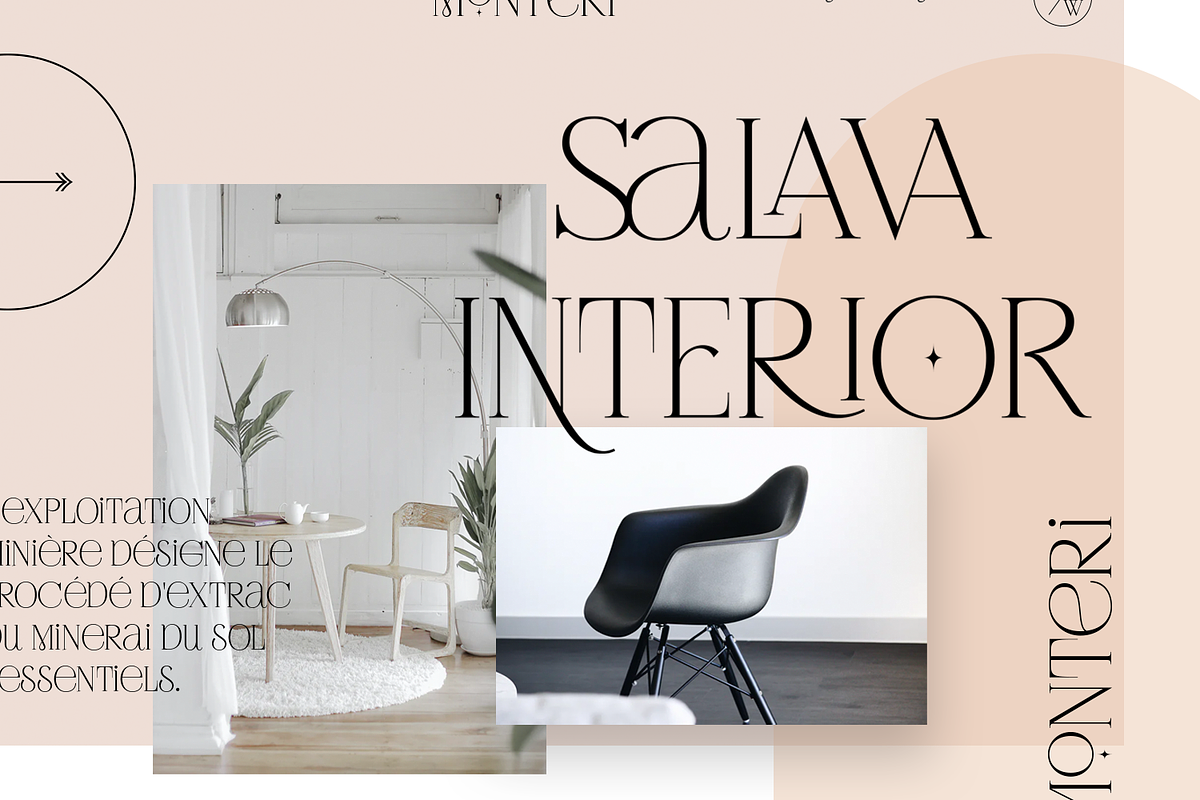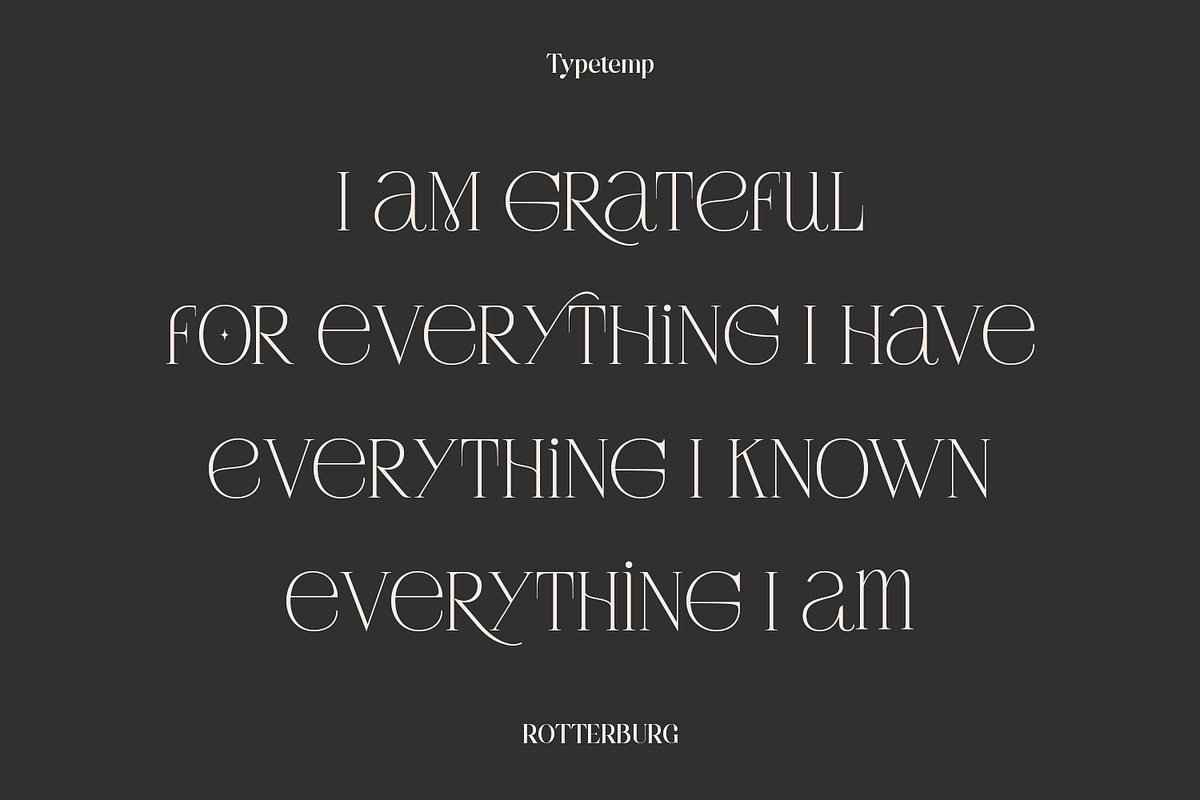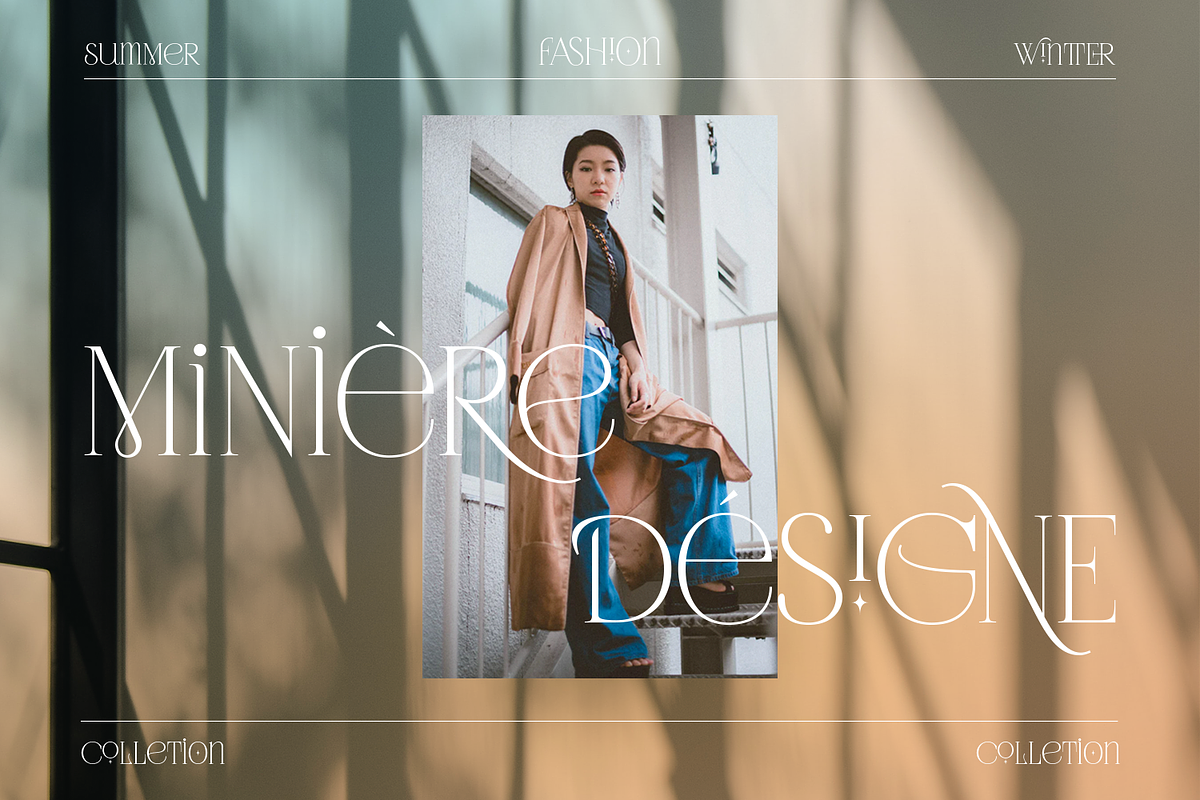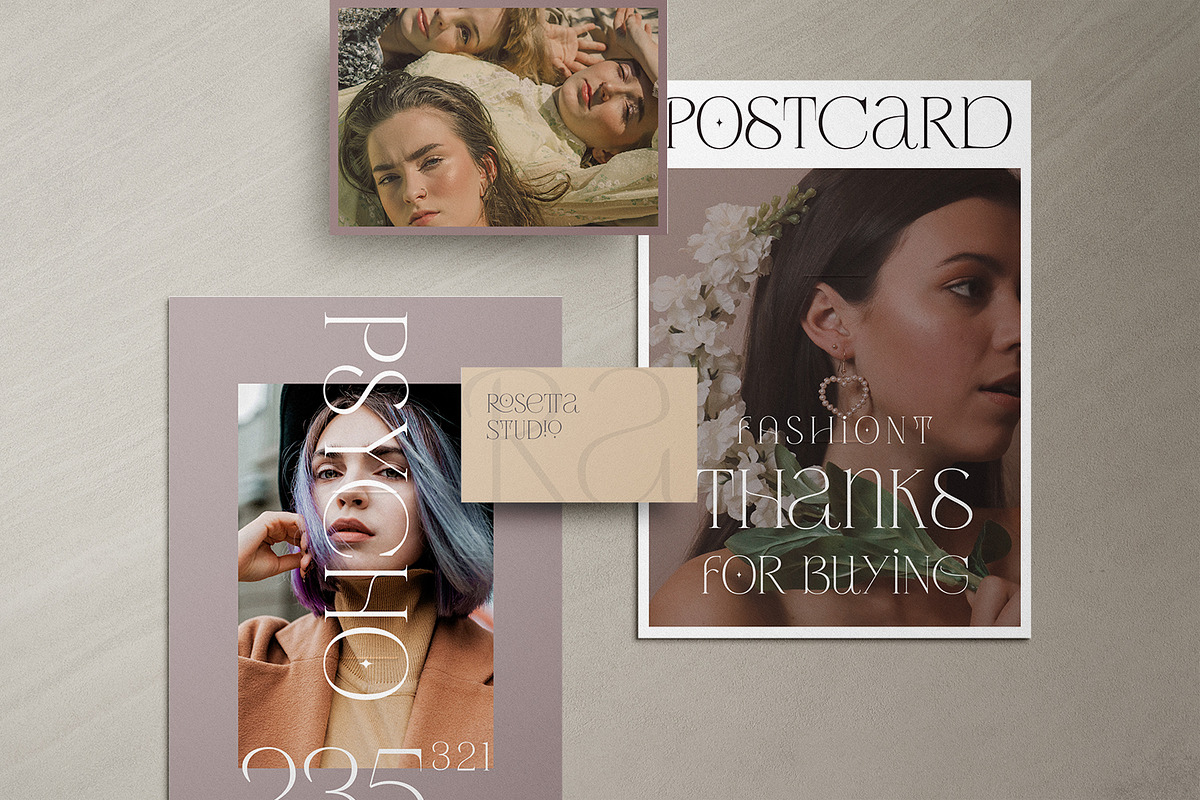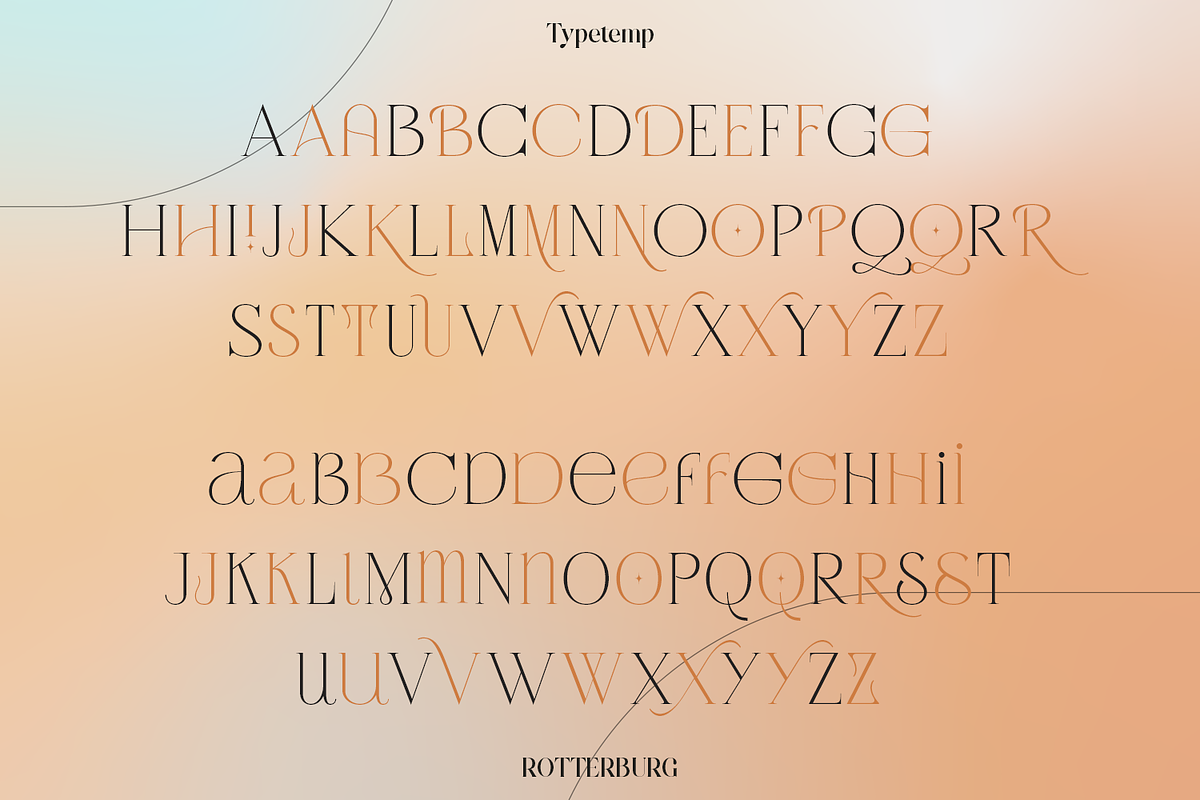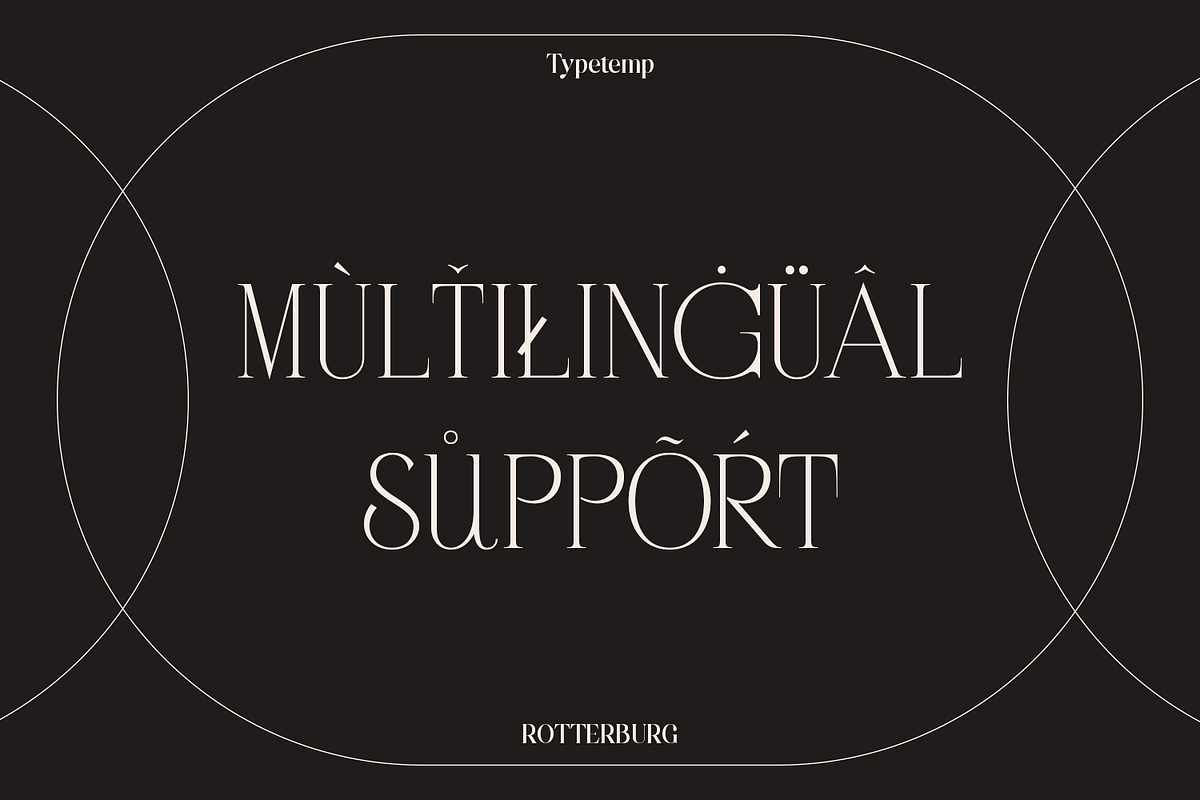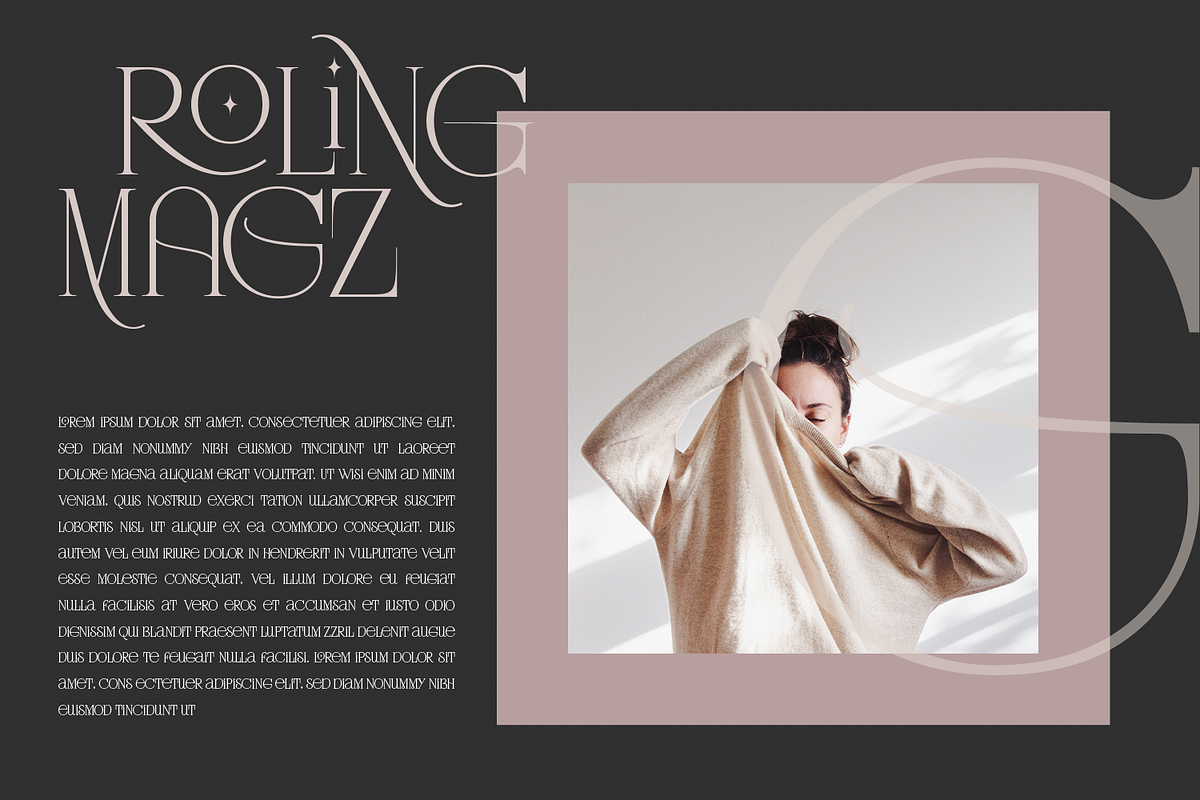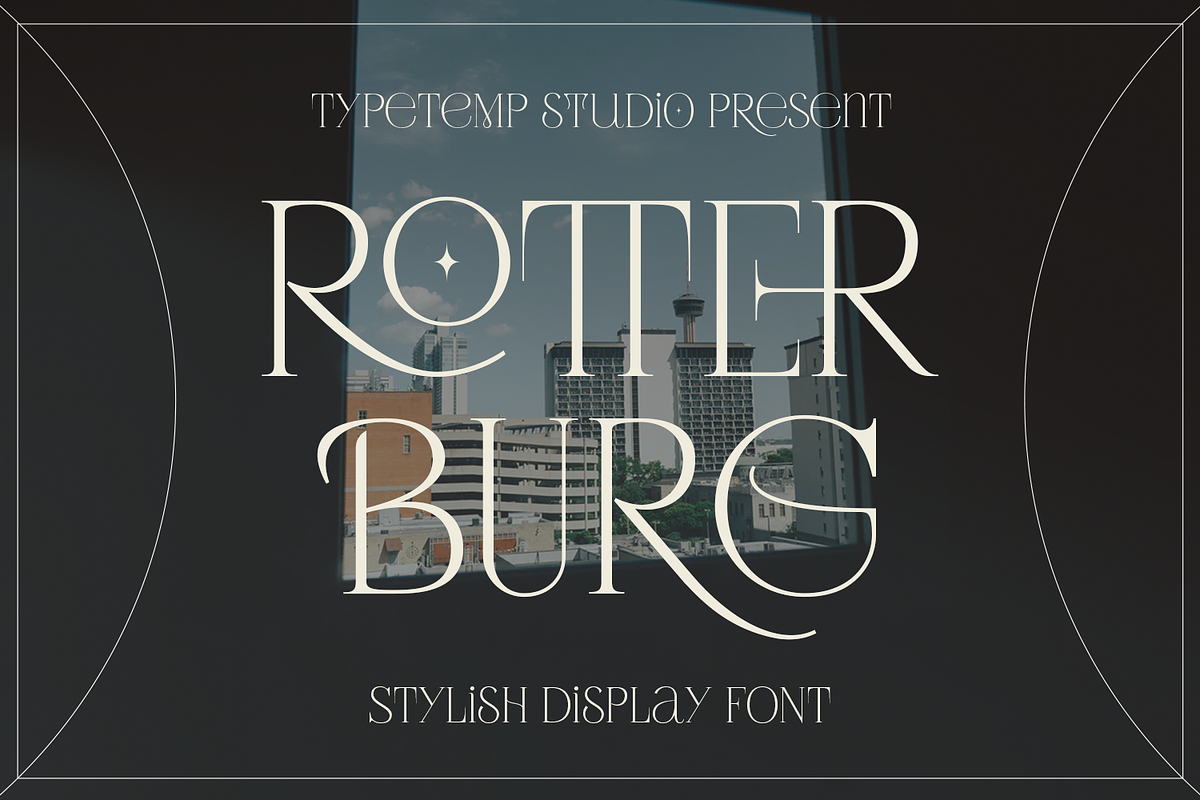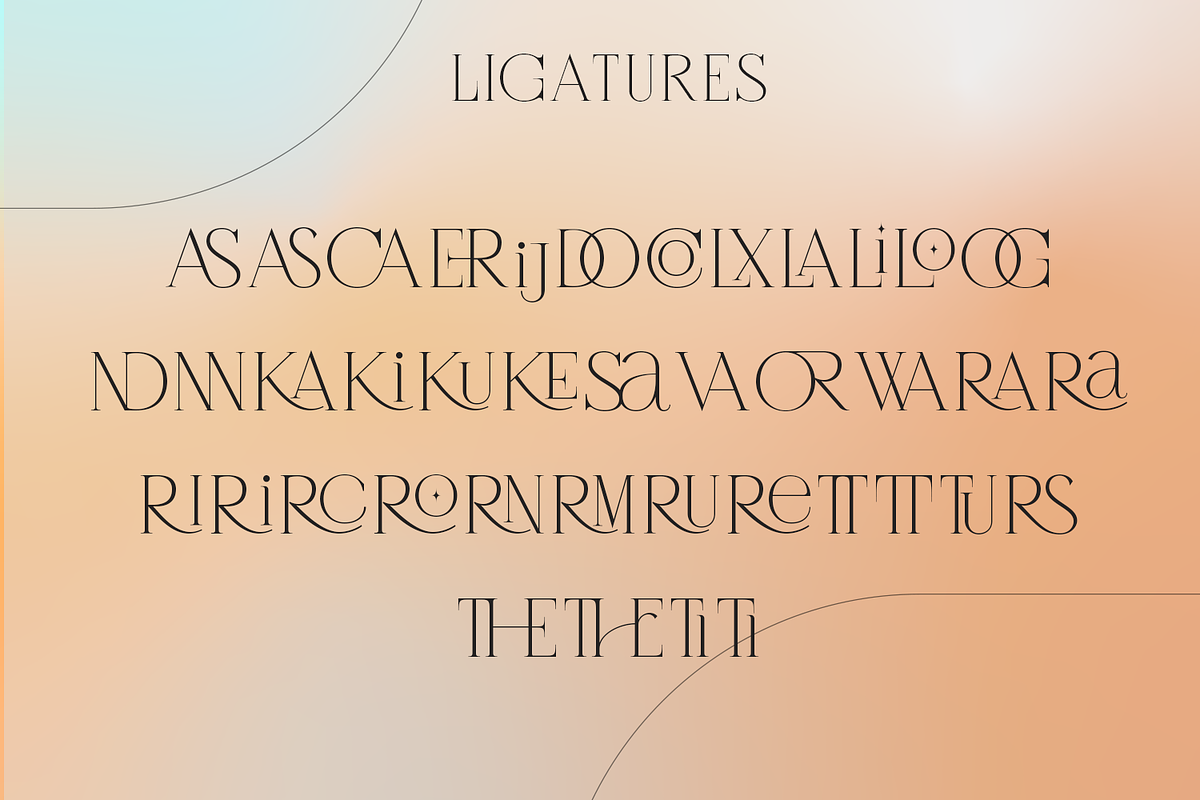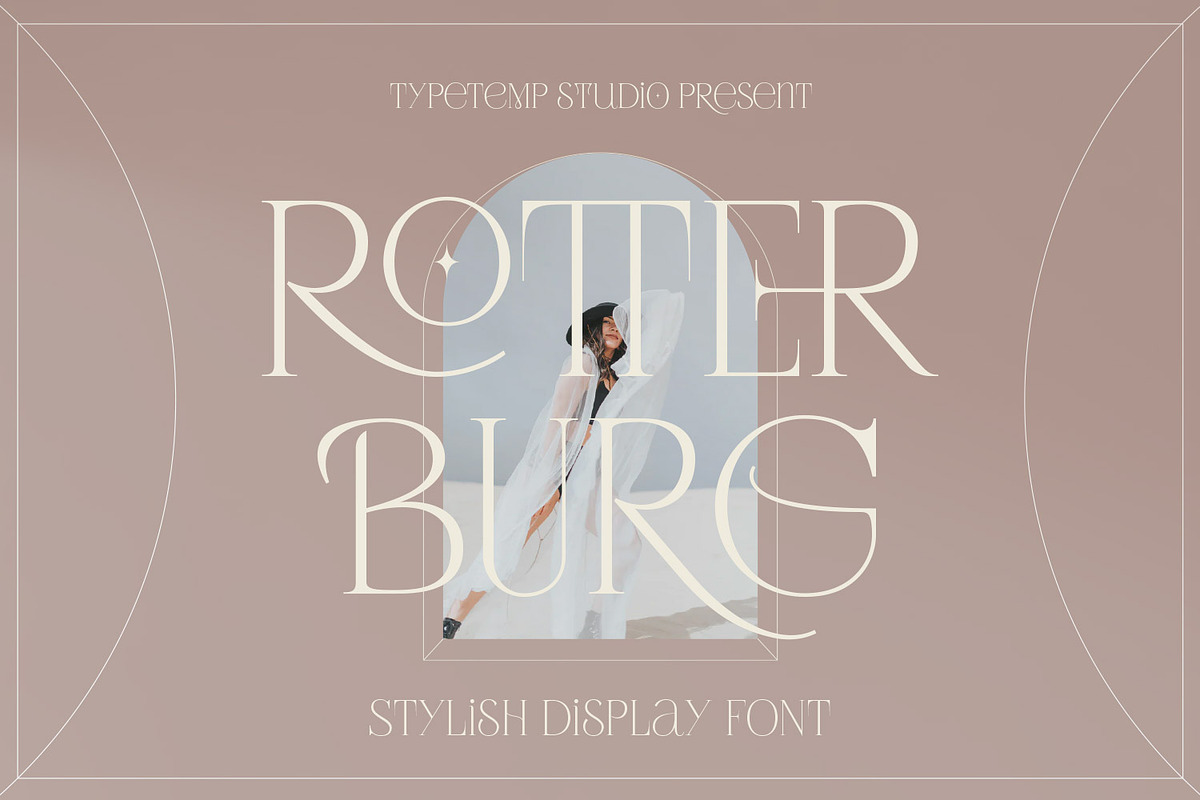
Rotterburg Stylish Display Font
Rotterburg Stylish Display is Serif Display with upper and lowercase is complemented by some of the same alternatives made with love. Access your OpenType features to access the large selection of alternate letters and ligatures, select the letters you like from the large variety to get the display font you like.
This font with alternatives, ligatures, and multilingual support. Perfect for editorial projects, Logo design, Clothing Branding, product packaging, magazine headers, or simply as a stylish text overlay to any background image.
- Stylistic Alternates & Ligatures
- Multilanguange